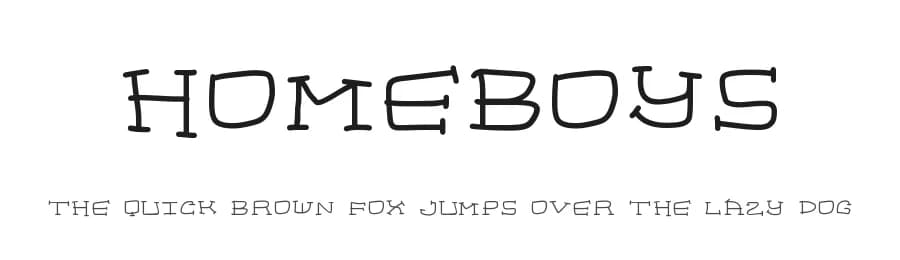
About Homeboys Font
Homeboys is a handwritten script font in medium weight. Designed by Geronimo Font Studios, this script has the casual, spontaneous feel of informal writing, conveying genuine warmth in every letter. Its straightforward, accessible character makes it ideal for work that needs personality without pretension, particularly personal correspondence, casual greeting cards, and social media graphics that benefit from a genuinely human touch rather than mechanical precision.
With 87 glyphs and support for over 107 languages in Latin-based scripts, the font adapts well to multilingual projects and international audiences alike. The informal, friendly nature of Homeboys excels in applications where authenticity and personality matter most. Sticker designs for handmade products, casual poster art, personal blog headers, and DIY vinyl decals for home decor all benefit from this script's unaffected energy and immediate approachability. Small business owners creating social media banners, crafters designing invitation suites, and designers working on informal branding projects will find a reliable tool that communicates warmth without sacrificing readability. Available as a free download from this page with licence terms displayed there, Homeboys works best when you want legibility and character where a more formal script would feel too stiff or overdone.
Homeboys Font is a script font that shines as a display or heading face. Pair it with a clean sans-serif or serif font for body text β the contrast creates a clear hierarchy while the two styles stay balanced and easy to read.